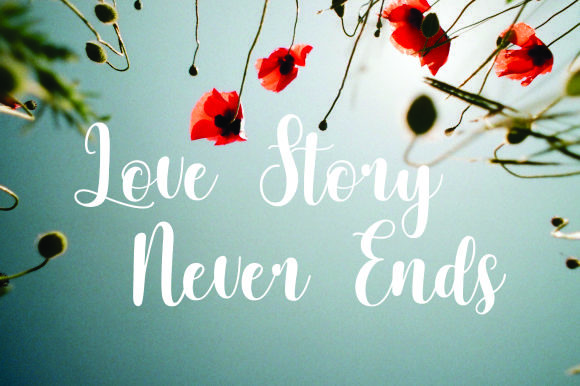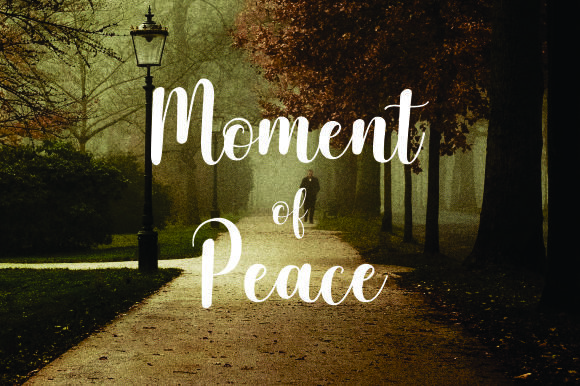
The Designer’s Delight: Anoa Font
I’ll never forget the time I was working on a whimsical craft project for a client who wanted a custom design that screamed ‘charm’ and ‘personality.’ As I scrolled through my font library, I realized I needed something special – a font that was both cute and calm, yet uniquely captivating. That’s when I stumbled upon the Anoa font, a hidden gem that instantly stole my heart. In this article, I’ll share my journey with Anoa, its features, and how you can make the most of this beautiful handwritten font in your design projects.
A First Impression: What Makes Anoa Special
Anoa is a unique handwritten font that exudes a sense of calmness and playfulness, making it perfect for designers, crafters, and creative hobbyists alike. Its distinct charm can instantly elevate any design project, from invitations and branding materials to social media graphics and crafts.
An Honest Review of Anoa Font
- ✨ Cute and Calm Feel: Anoa’s gentle curves and soft lines create a soothing visual experience.
- ✅ Highly Versatile: Suitable for a wide range of design projects, from digital to print.
- 💫 Unique Character: Anoa’s handwritten style adds a personal touch to any design.
⚠️ While Anoa is an amazing font, it’s essential to note that its uniqueness might not make it the best fit for very formal or traditional designs. Additionally, some users have reported that certain characters may appear slightly inconsistent in certain sizes or contexts.
🤔 One thing to keep in mind is that Anoa’s charm lies in its handwritten imperfections, which can sometimes make long blocks of text a bit harder to read.
The Story Behind Anoa
Anoa was designed with the intention of capturing the essence of a calm, serene environment. Its creator aimed to craft a font that felt both approachable and sophisticated, making it suitable for a wide range of creative projects. The name ‘Anoa’ reflects the peaceful and gentle nature of the font, inspired by the serene landscapes of the Indonesian island of Sulawesi, home to the anoa, a unique and endangered species of buffalo.
Q: What makes Anoa a unique font?
A: Anoa’s uniqueness lies in its handwritten style that combines a cute and calm feel, making it perfect for designs that require a personal touch.
Q: Is Anoa suitable for body text?
A: While Anoa is beautiful, its handwritten nature might make long blocks of text a bit harder to read. It’s best used for headings, titles, or short paragraphs.